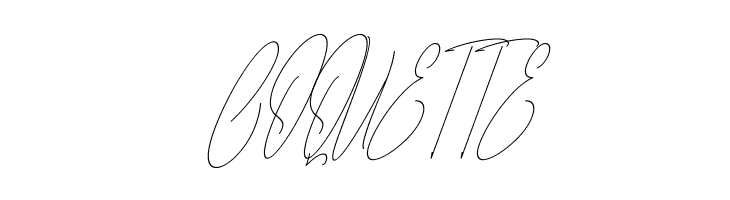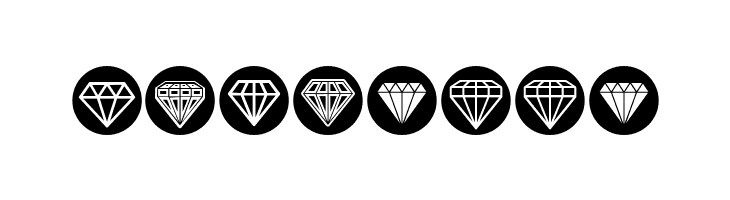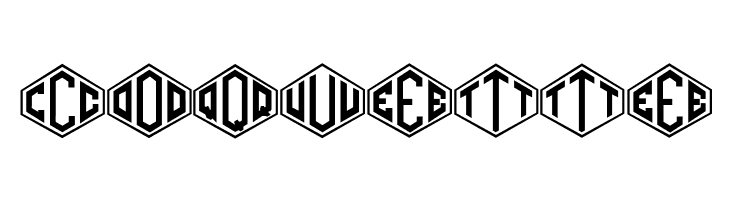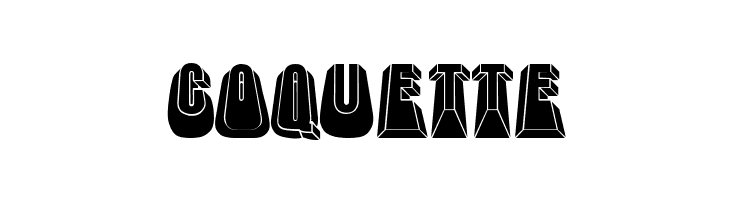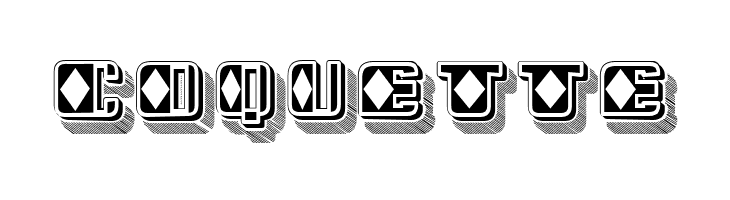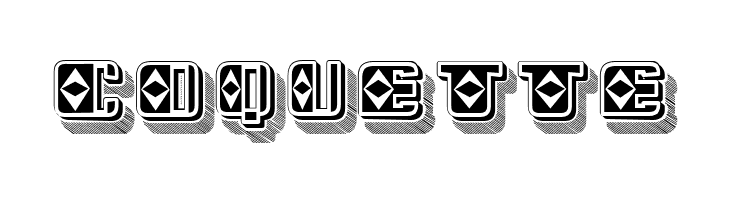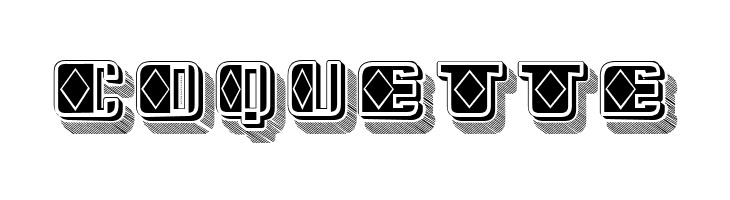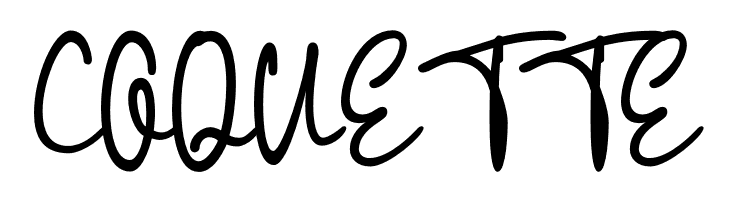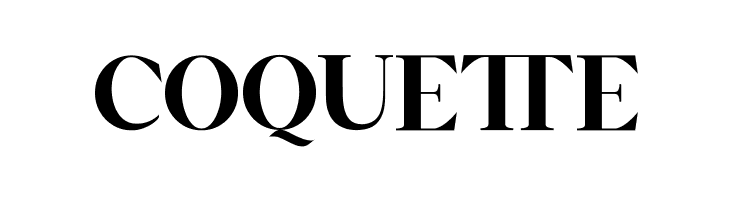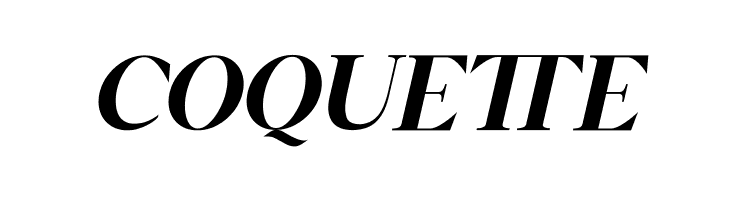
( Fonts by a AlterDeco Type Foundry - Adit Saputra. Personal-use only. For commercial use please contact owner. ) A bold, geometric font with Art Deco influences, perfect for striking headlines and logos. Download 2725 Downloads@WebFont
( Fonts by Prioritype Co - Prio Nurokhim Aji - Personal-use only. For commercial use please contact owner. ) A playful, bold, and rounded handwritten font. Download 86 Downloads@WebFont
( Fonts by Mans Greback - www.mansgreback.com - Personal-use only. For commercial use please contact owner. ) A playful, handwritten font with smooth, rounded strokes and a casual style. Download 34 Downloads@WebFont
( Fonts by wep - Wahyu Eka Prasetya - Personal-use only. For commercial use please contact owner. ) A bold, modern sans-serif font with clean lines and strong presence. Download 754 Downloads@WebFont
( Fonts by 38.lineart - Muhammad Ridha Agusni - Personal-use only. For commercial use please contact owner. ) A lively, handwritten font with fluid strokes and a playful style. Download 53 Downloads@WebFont
( Fonts by MuraKnockout Media + Design - muraknockout.com. Personal-use only. For commercial use please contact owner. ) A geometric, modern font with clean lines and a minimalist aesthetic. Download 524 Downloads@WebFont
( Fonts by Michael Muranaka - muraknockout.com - Personal-use only. For commercial use please contact owner. ) A geometric and modern font with clean lines and uniform stroke width. Download 183 Downloads@WebFont
( Fonts by www.monofonts.com. Personal-use only. For commercial use please contact owner. ) A bold, modern sans-serif font with a geometric structure. Download 503 Downloads@WebFont
( Fonts by www.monofonts.com. Personal-use only. For commercial use please contact owner. ) A bold, geometric typeface with strong, clean lines and a modern look. Download 2605 Downloads@WebFont
( Fonts by www.monofonts.com. Personal-use only. For commercial use please contact owner. ) A clean, modern sans-serif font with uniform stroke widths and geometric influence. Download 302 Downloads@WebFont
( Fonts by Andrew McCluskey - nalgames.com. Personal-use only. For commercial use please contact owner. ) A bold, geometric font with a three-dimensional effect and angular shapes. Download 217 Downloads@WebFont
( Fonts by Alde Saputro - aldedesign - https://www.creativefabrica.com/product/the-crafty-holiday-font-bundle/ref/125925/ - Personal-use only. For commercial use please contact owner. ) A refined, cursive script font with an elegant italic slant. Download 352 Downloads@WebFont
( Fonts by Vladimir Nikolic - https://www.creativefabrica.com/product/educated-deers/ref/144265/ - Personal-use only. For commercial use please contact owner. ) A decorative font with characters resembling intricate diamond shapes. Download 52 Downloads@WebFont
( Fonts by Vladimir Nikolic - www.creativefabrica.com/designer/vladimirnikolic/ - Personal-use only. For commercial use please contact owner. ) A bold, 3D geometric font with high contrast and a futuristic style. Download 38 Downloads@WebFont
( Fonts by BLKBK - https://blkbk.ink - Personal-use only. For commercial use please contact owner. OFF SITE ) A bold, rugged font with a vintage, industrial feel. Download 633 Downloads
( Fonts by Billy Argel - www.billyargel.com - Personal-use only. For commercial use please contact owner. ) A bold, angular font with a Gothic-inspired, geometric style. Download 74 Downloads@WebFont
( Fonts by Vladimir Nikolic - www.creativefabrica.com/designer/vladimirnikolic/ - Personal-use only. For commercial use please contact owner. ) A bold, geometric font with a 3D effect and industrial style. Download 43 Downloads@WebFont
( Fonts by Vladimir Nikolic - www.creativefabrica.com/designer/vladimirnikolic/ - Personal-use only. For commercial use please contact owner. ) A bold, geometric, and decorative font with a 3D effect and intricate patterns. Download 39 Downloads@WebFont
( Fonts by Vladimir Nikolic - www.creativefabrica.com/designer/vladimirnikolic/ - Personal-use only. For commercial use please contact owner. ) A bold, decorative font with a 3D effect and intricate geometric patterns. Download 39 Downloads@WebFont
( Fonts by Vladimir Nikolic - www.creativefabrica.com/designer/vladimirnikolic/ - Personal-use only. For commercial use please contact owner. ) A decorative monogram font with characters encased in diamond shapes, featuring an art deco style. Download 35 Downloads@WebFont
( Fonts by Vladimir Nikolic - www.creativefabrica.com/designer/vladimirnikolic/ - Personal-use only. For commercial use please contact owner. ) A decorative font with bold, geometric characters enclosed in diamond-shaped monograms. Download 29 Downloads@WebFont
( Fonts by Geronimo Fonts - Personal-use only. For commercial use please contact owner. ) A geometric, zigzag-patterned font with a bold and artistic style. Download 1213 Downloads@WebFont
( Fonts by a Max Infeld - XEROGRAPHER FONTS - xerographer.blogspot.com . Personal-use only. For commercial use please contact owner. ) A bold, industrial-style font with a diamond plate texture. Download 2062 Downloads@WebFont
( Fonts by Debut Studio - Ari Fadli - Personal-use only. For commercial use please contact owner. ) A dynamic and expressive handwritten font with fluid strokes and a brush-like texture. Download 33 Downloads@WebFont